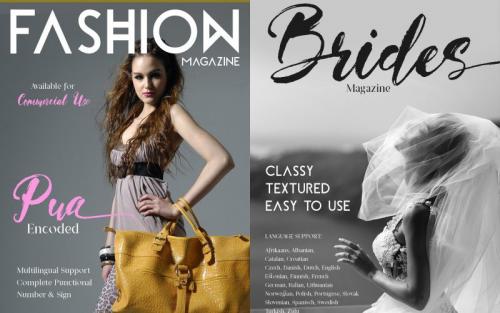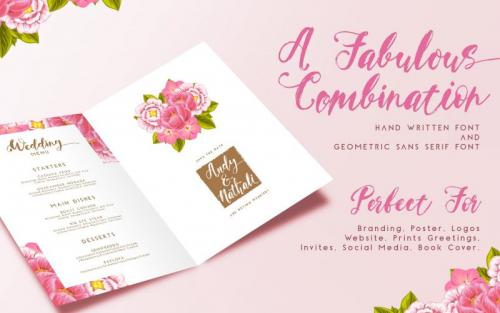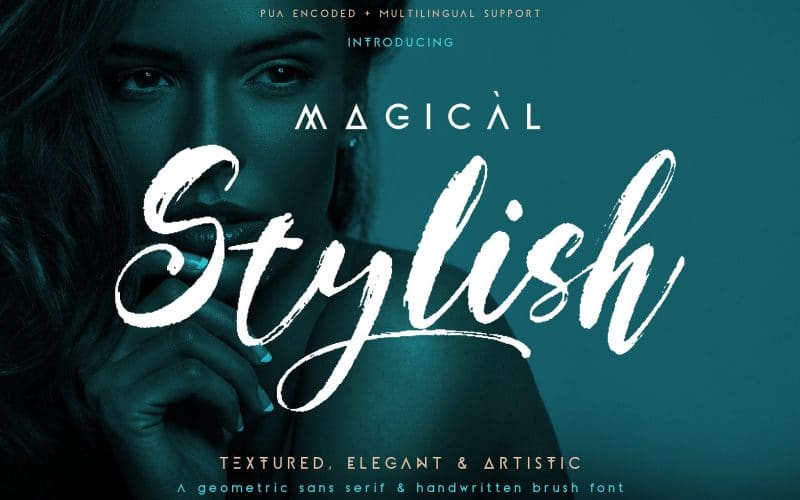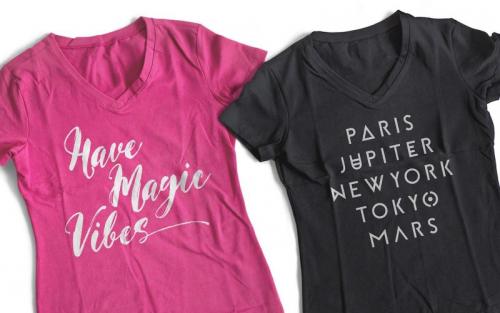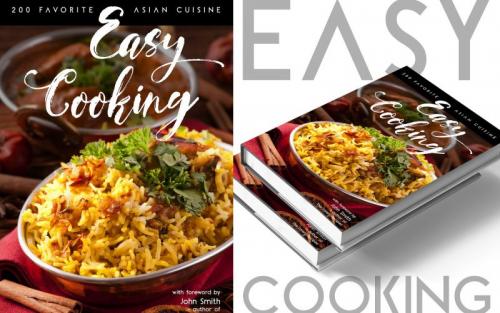
Magical Stylish Brush Font
Introducing the new classy combination font Magical Stylish, a geometric font and wet brush font.
It really easy to use as fast as you blink your eyes, just type or copy and paste the text you want and abracadabraaa…. it works!
It comes with an alternate set of uppercase letters, and a lowercase letters to ensure you get the look you are after.